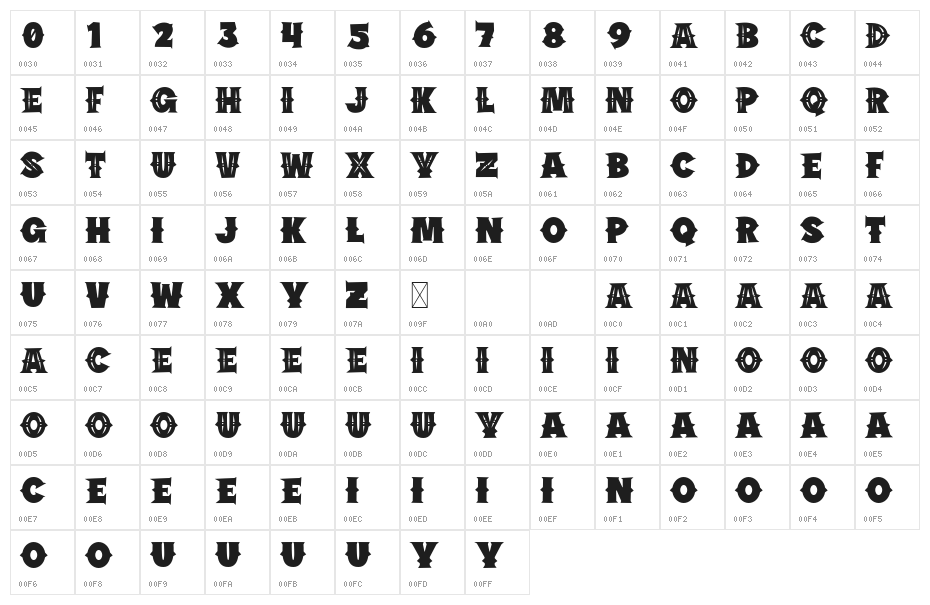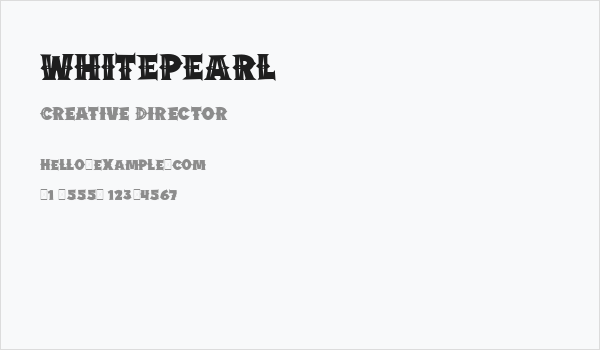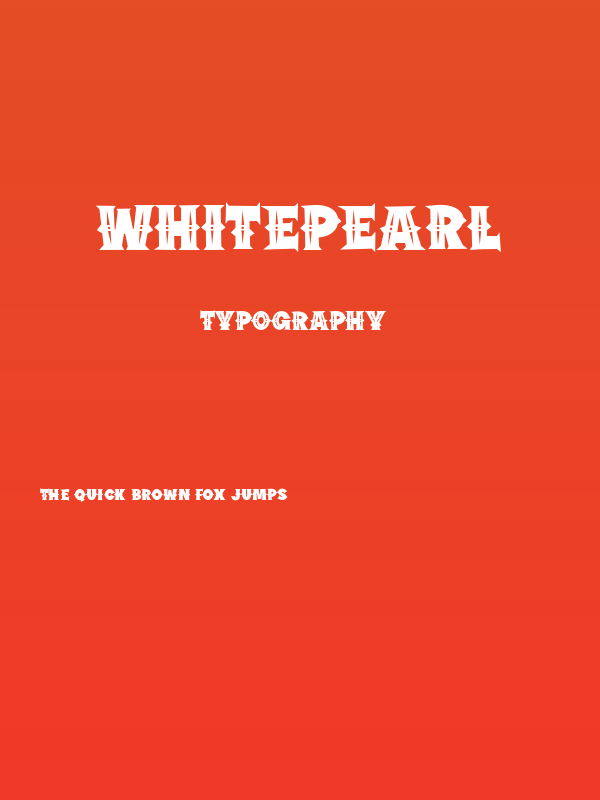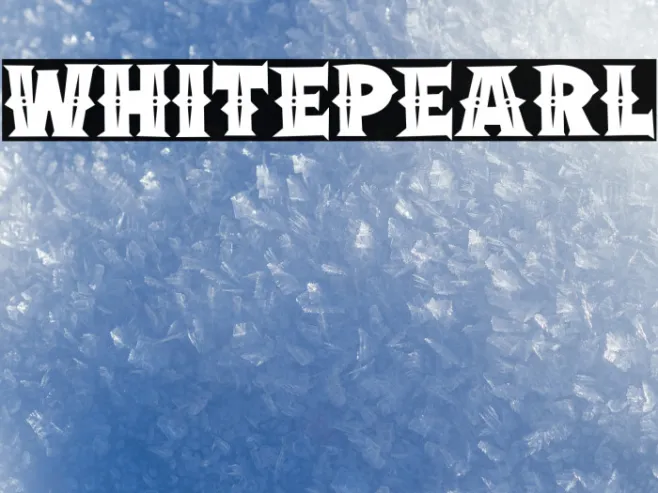
WHITEPEARL Font
WHITEPEARL Description
This font features a bold and striking design with sharp, angular edges and a distinct geometric style. The characters are heavily stylized, with a unique combination of thick and thin strokes that create a dramatic visual impact. The uppercase letters are particularly prominent, showcasing a strong presence with their wide and commanding forms. The numbers and special characters maintain the same bold aesthetic, ensuring consistency across all elements. This font is ideal for projects that require a powerful and eye-catching display, such as posters, logos, and branding materials.
| Proposed Projects | Ideal for posters, logos, branding, and any project needing a strong visual impact. |